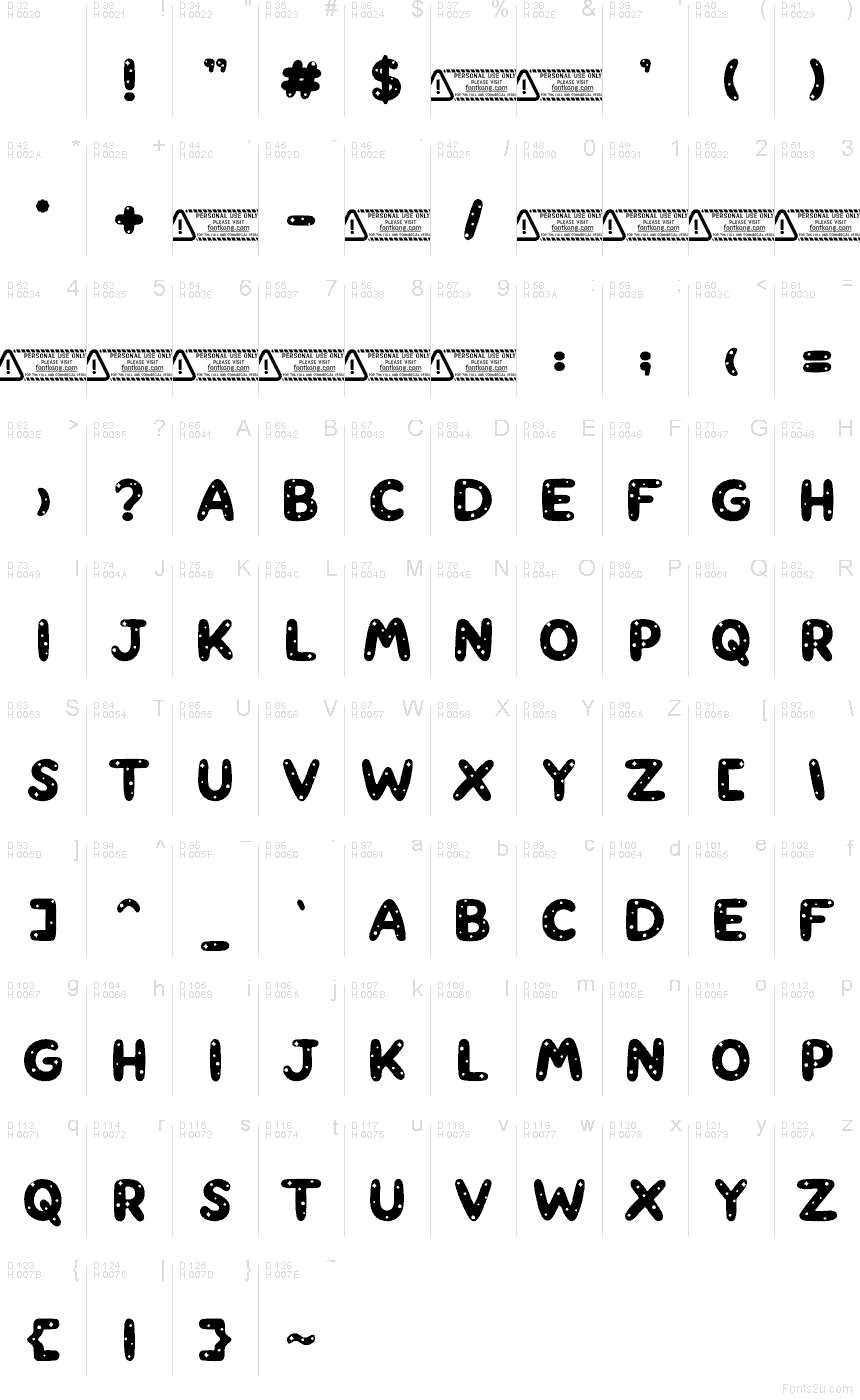
Comet font by Kong Font is a free decorative display font that looks like it was drawn with a thick, inky marker and sprinkled with tiny stars. Its rounded, bubble-like letters feel soft and friendly, while the scattered white dots give each character a glowing, outer-space shimmer that keeps the eye moving across the word. The mood is playful and cosmic at once, like a night sky turned into lettering.
Using Comet, you can instantly give kids’ book covers, birthday invitations, science fair posters, game logos, stickers, and YouTube thumbnails a bold, space-themed personality. This free font works best when you let it stay big and roomy, so keep headlines large and pair it with a simple sans serif for any small supporting text.